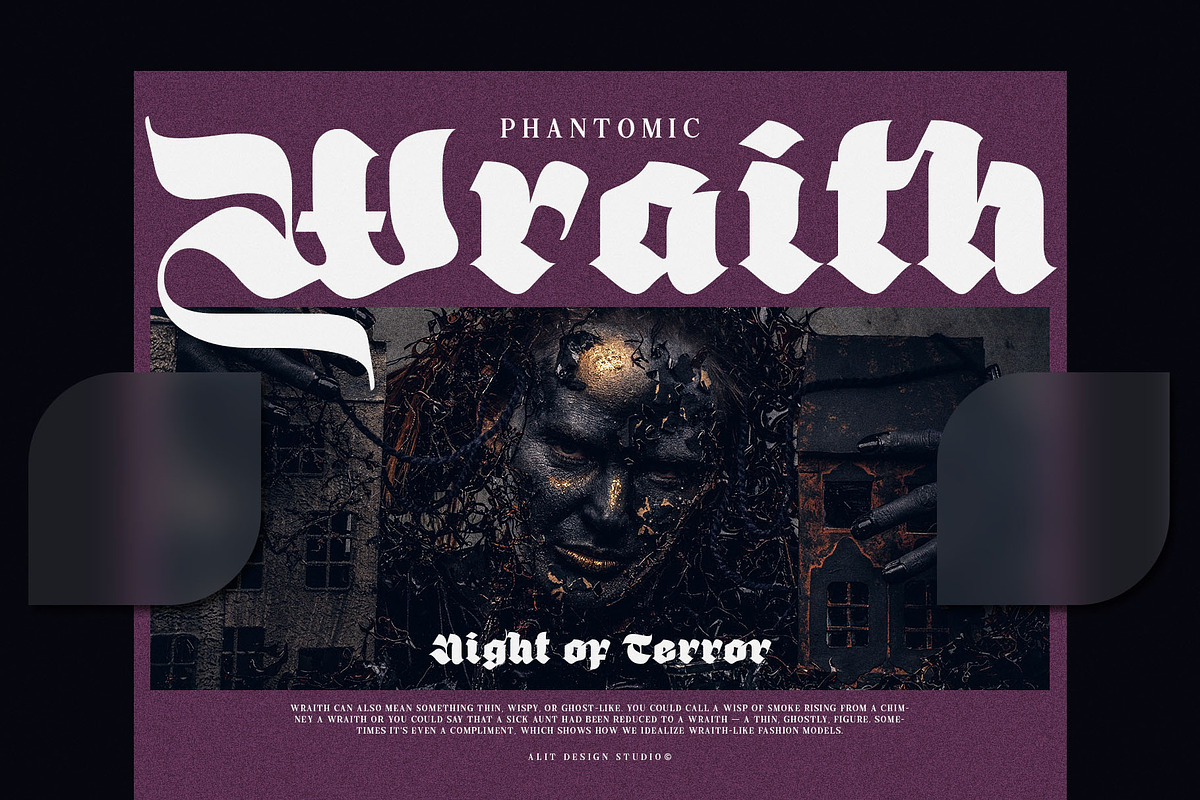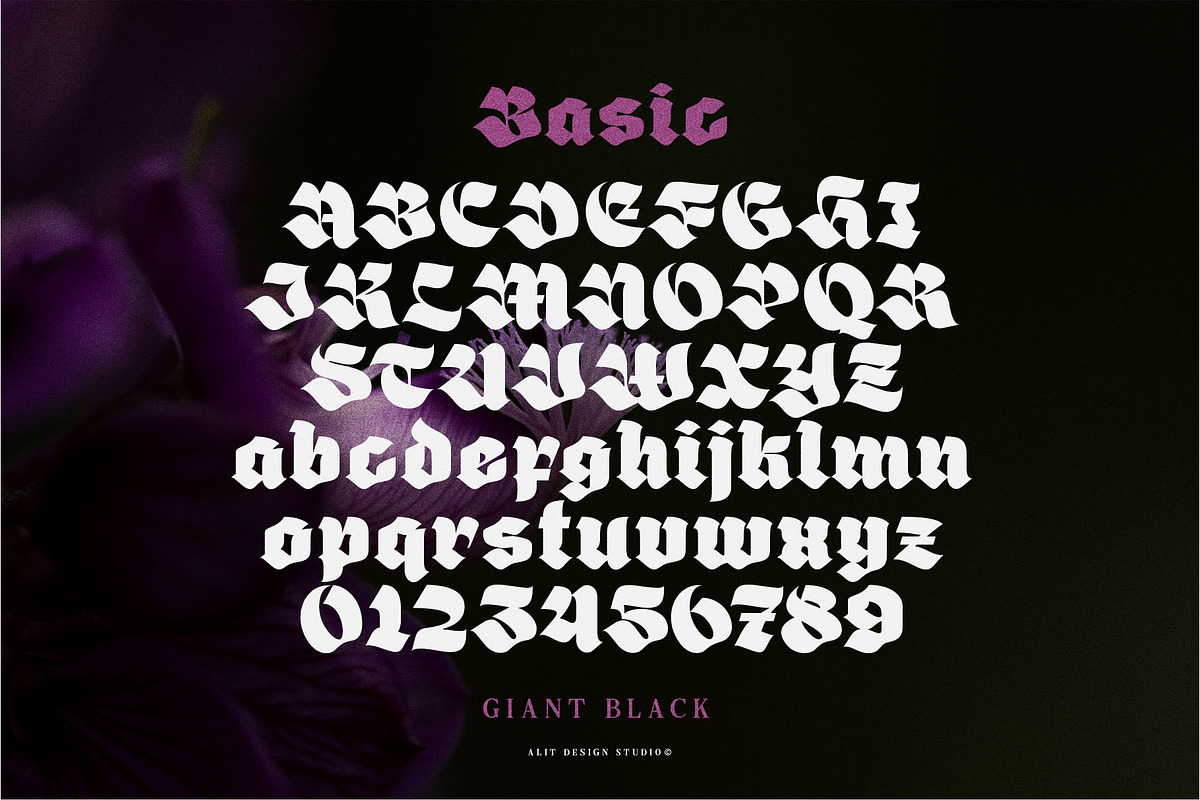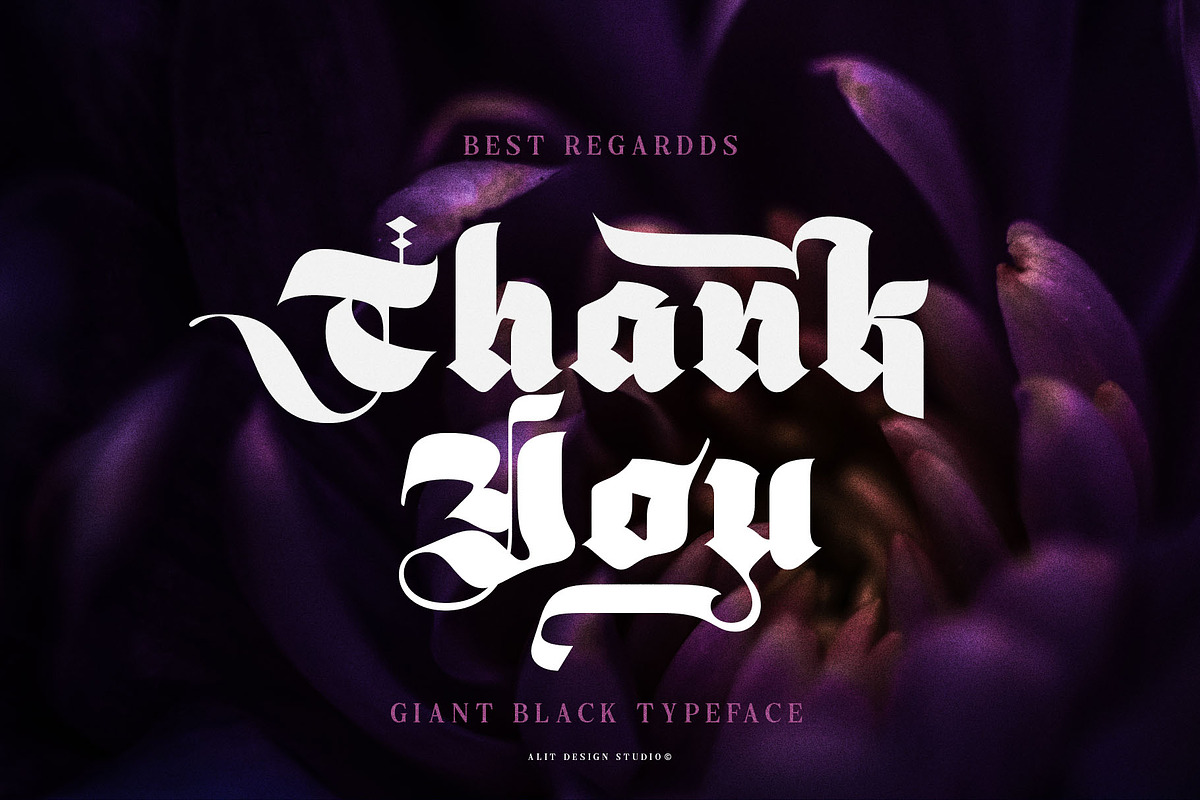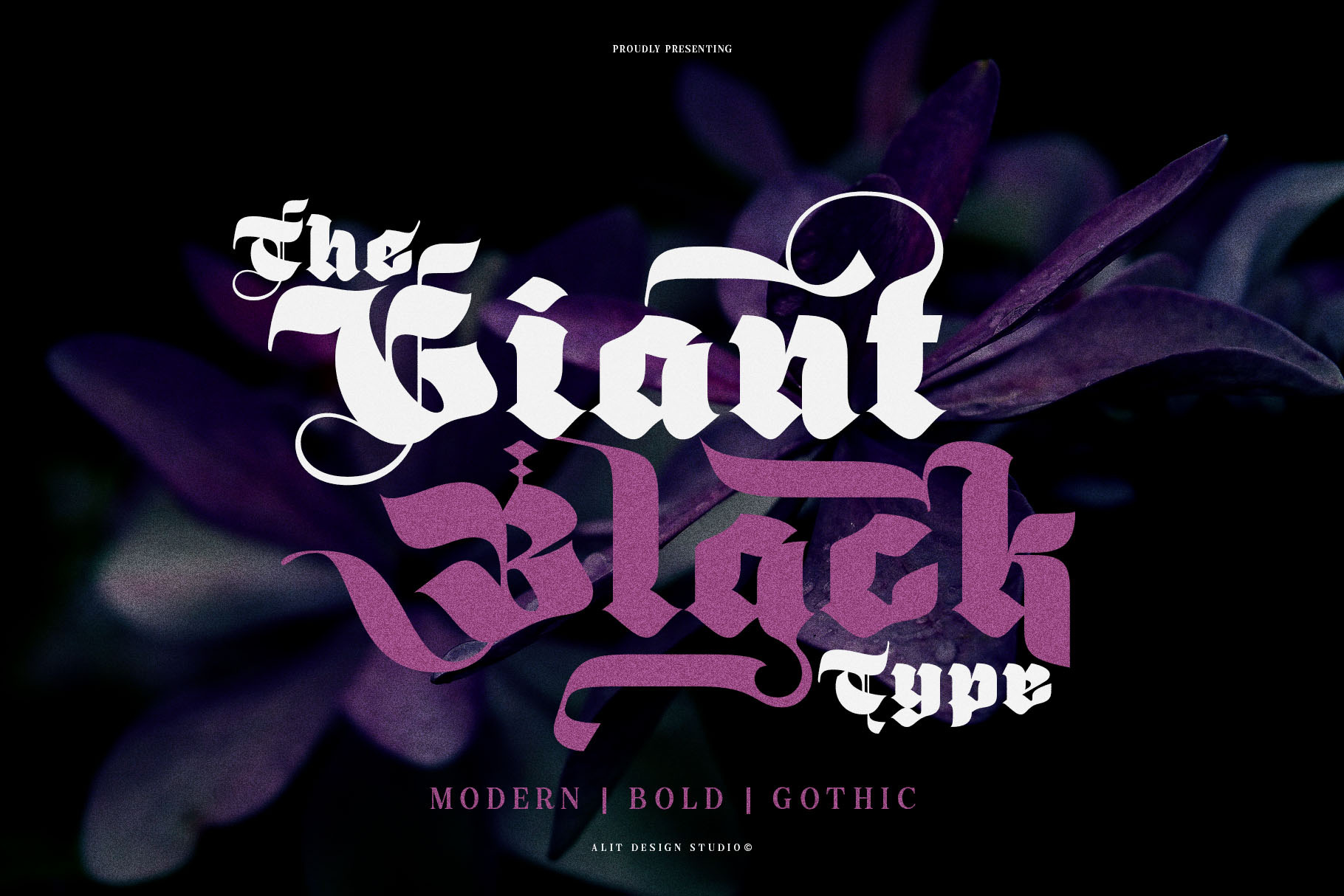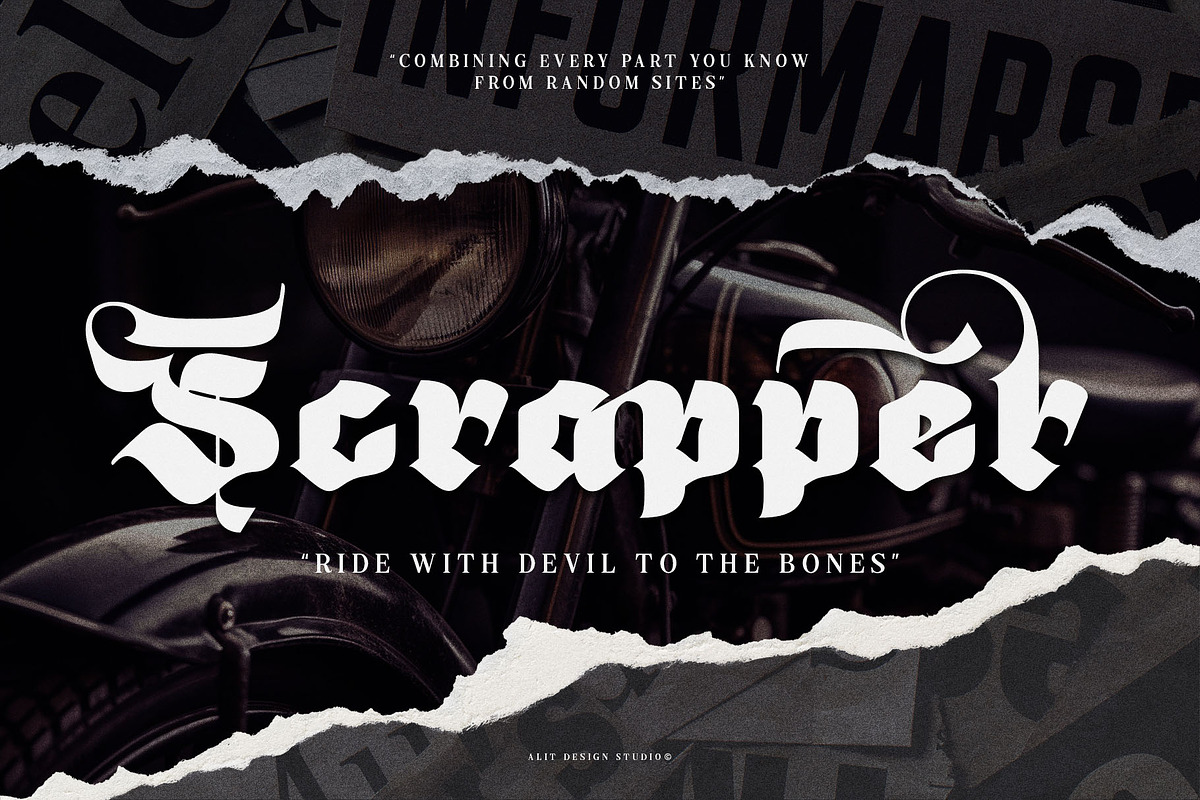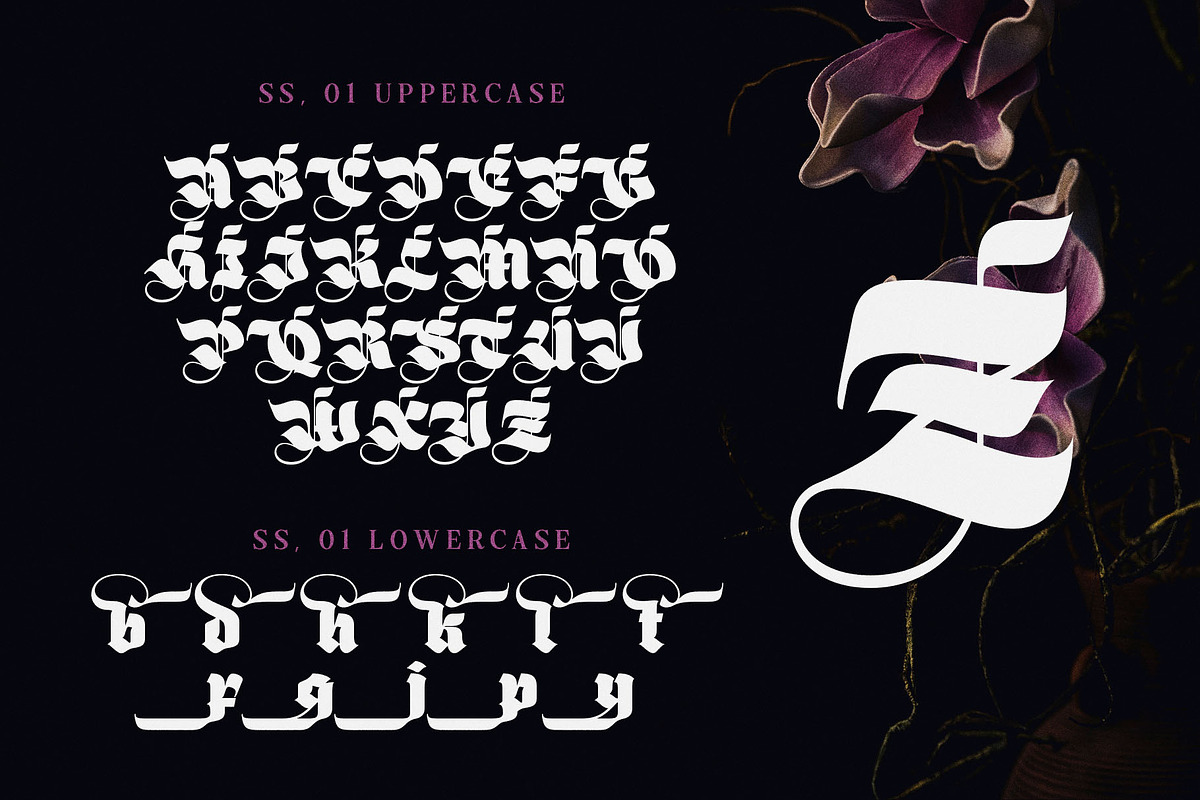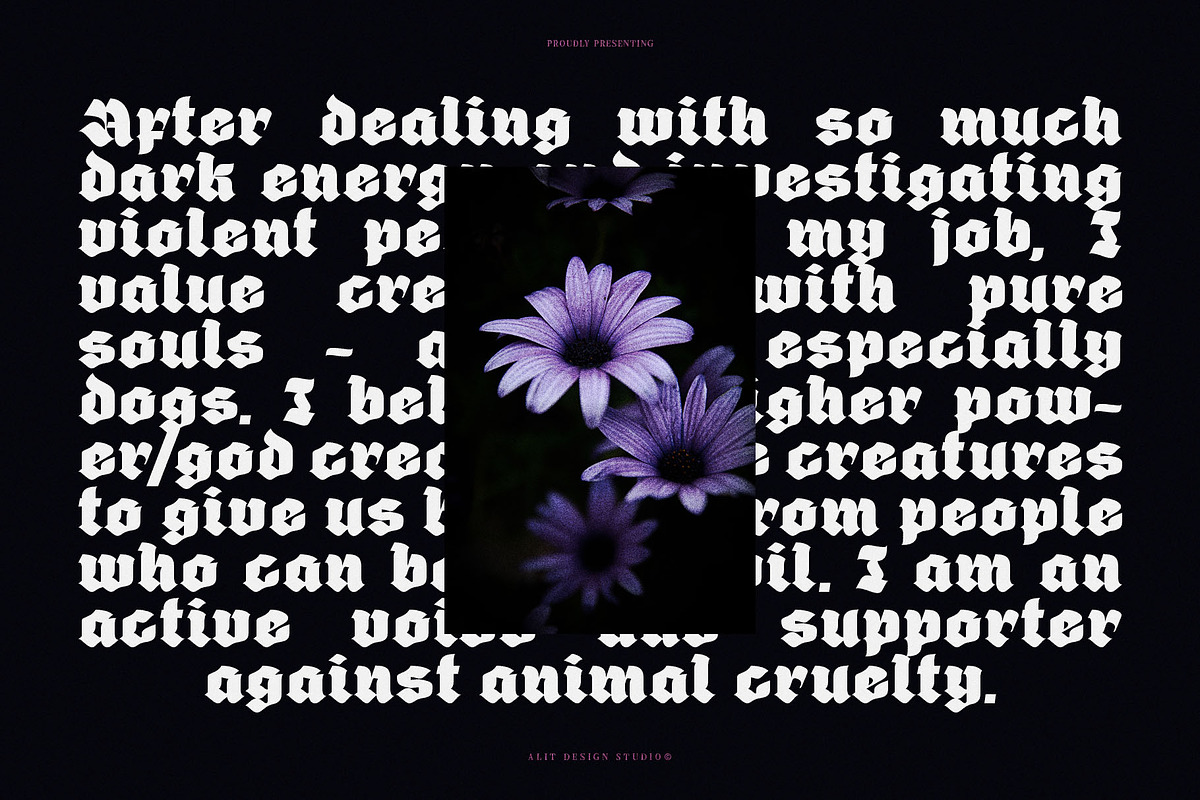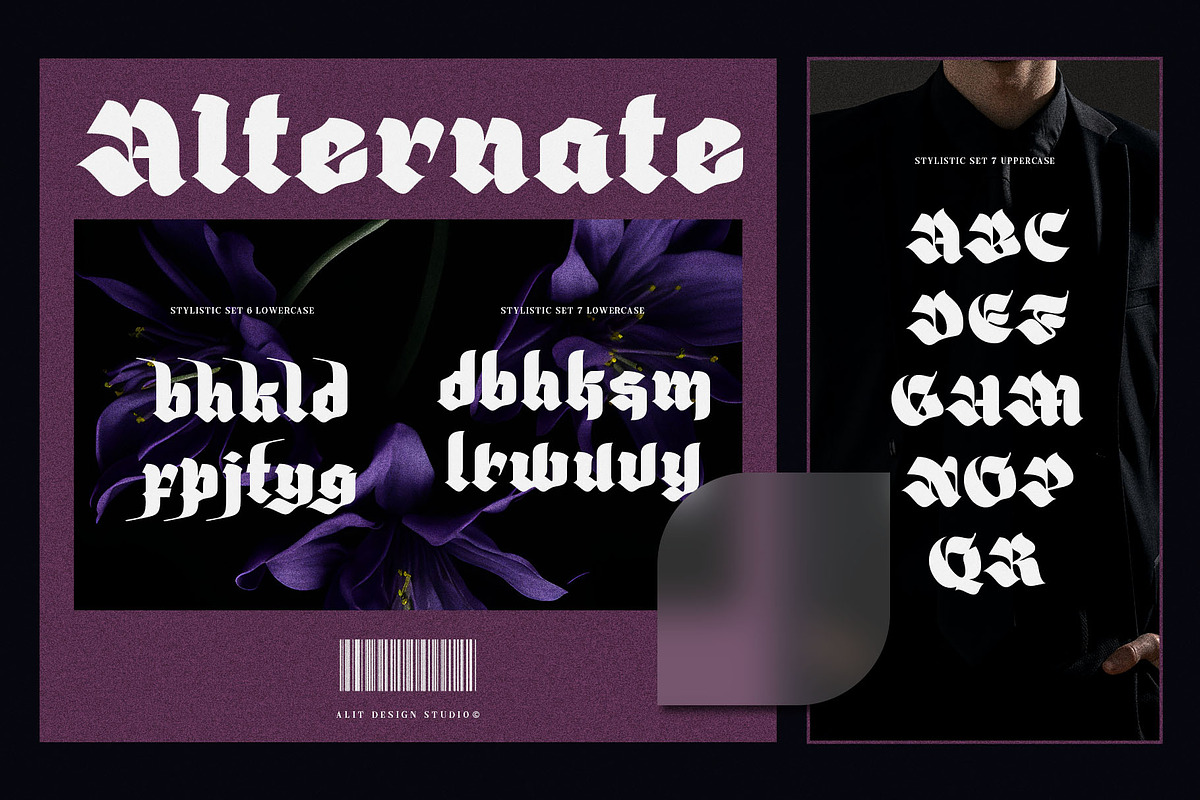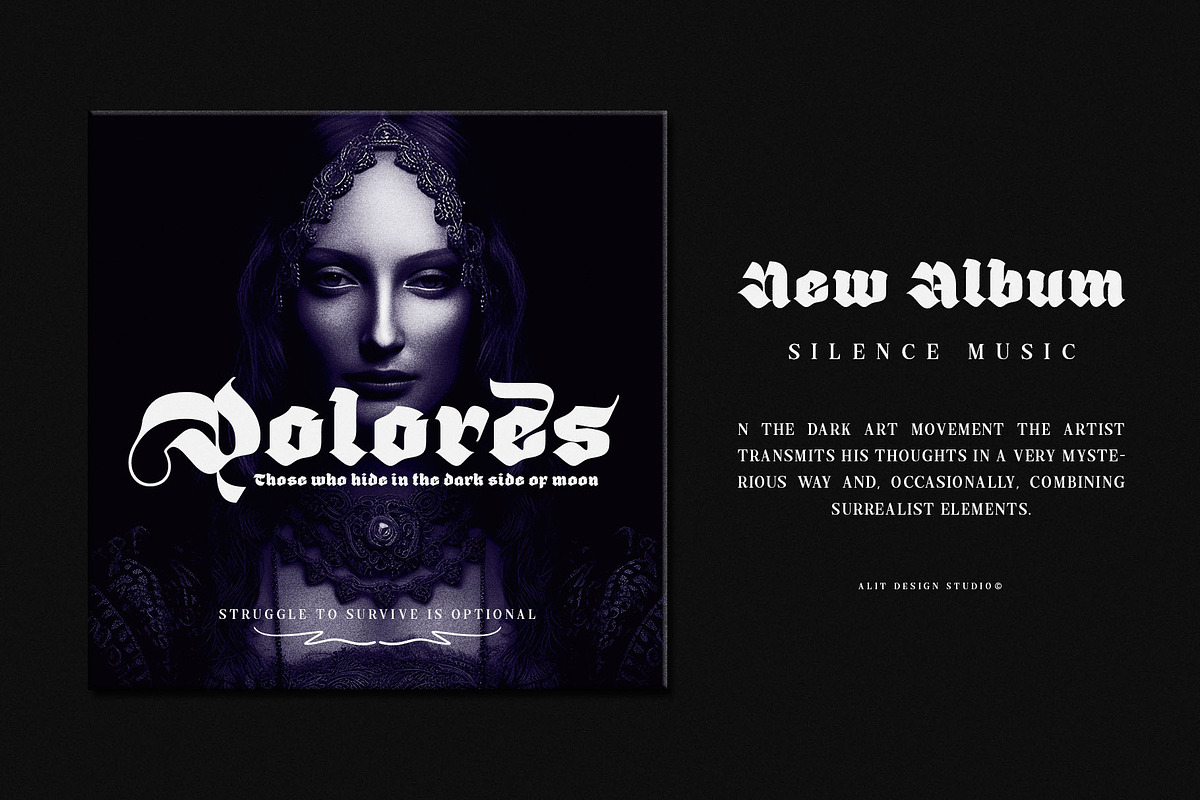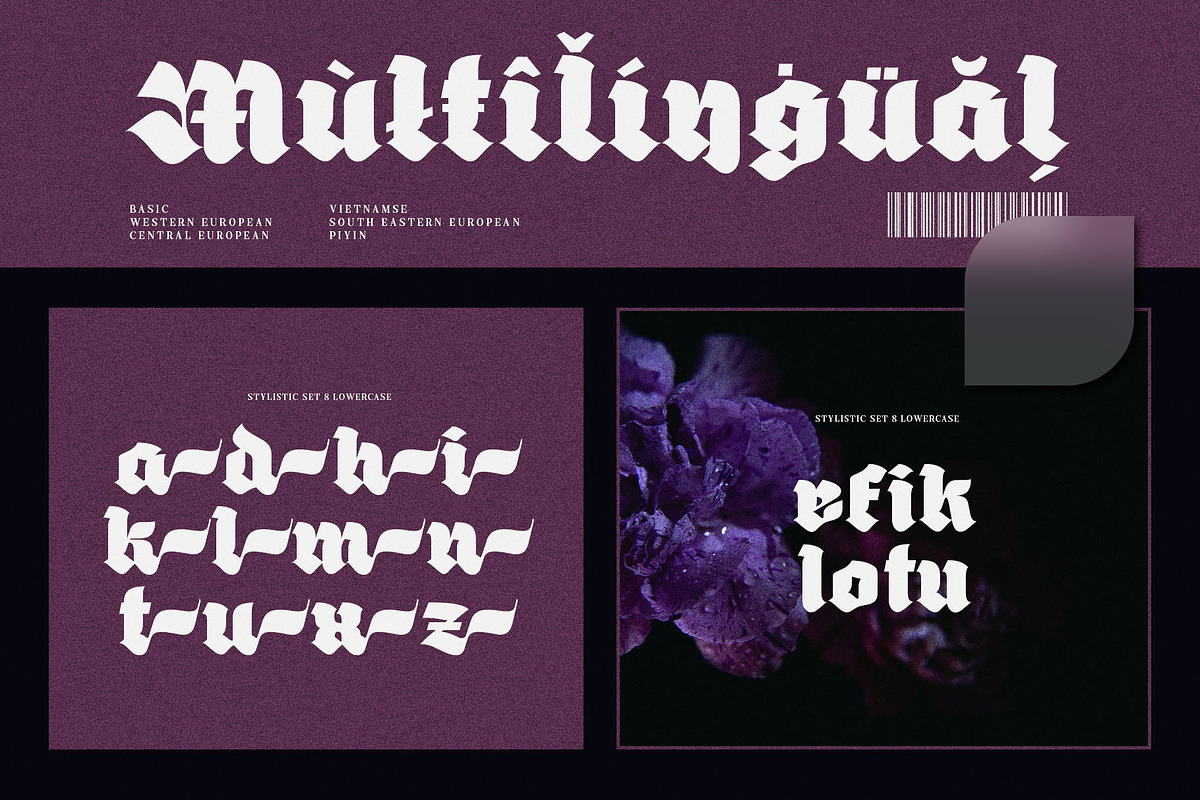
Giant Black Typeface
Introducing "The Giant Black Typeface" - an embodiment of boldness and elegance, crafted with meticulous attention to detail. This font combines the weighty presence of blackletter with intricate swashes, captivating ligatures, versatile alternates, and the flexibility of PUA Unicode features.
Each stroke exudes power and sophistication, making it ideal for commanding headlines, striking logos, or adding a touch of grandeur to any design project. Whether you're creating a medieval-inspired masterpiece or a contemporary masterpiece, "The Giant Black Typeface" stands tall, ready to make a statement.
Unlock the potential of your designs with this versatile font, where tradition meets modernity, and boldness meets finesse. Elevate your typography game with "The Giant Black Typeface" and leave a lasting impression with every letter.